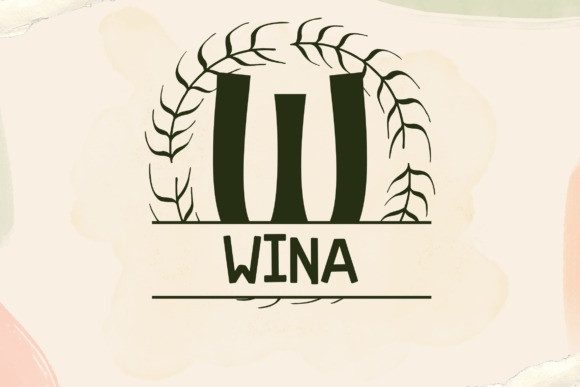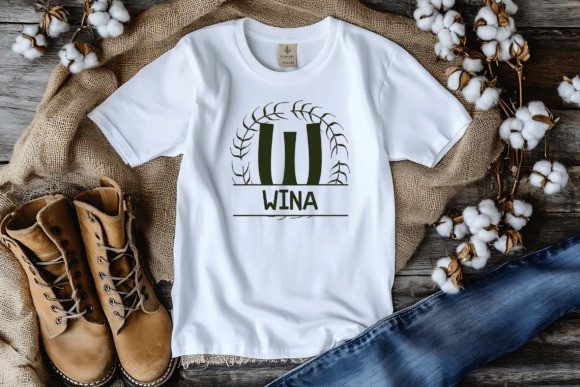
Sylvaris Split Monogram Font
Sylvaris Split Monogram Font is a refined serif font that features a built-in horizontal break, giving you space to personalize each letter with custom names, dates, or initials. This elegant monogram style combines classical serif structure with botanical-inspired curves, making it perfect for wedding invitations, branded packaging, Cricut projects, engraved gifts, and luxury stationery.
Designed with clarity and beauty in mind, each uppercase letter in the Sylvaris Split Monogram carries delicate flared serifs and subtle curves reminiscent of nature. The graceful break in the middle of each character offers a clean, editable space that’s ideal for personalization—allowing you to add a name or meaningful word while maintaining a professional and decorative style.
Whether you’re creating a bespoke logo for a boutique, customizing a tumbler or wood sign, or building a complete wedding suite, Sylvaris Split Monogram delivers elegance, charm, and versatility. It pairs beautifully with script fonts for a modern-classic contrast and can be used in print and digital formats.
From handcrafted gifts to branding and upscale home décor, this split monogram font brings beauty and refinement to any personalized project.